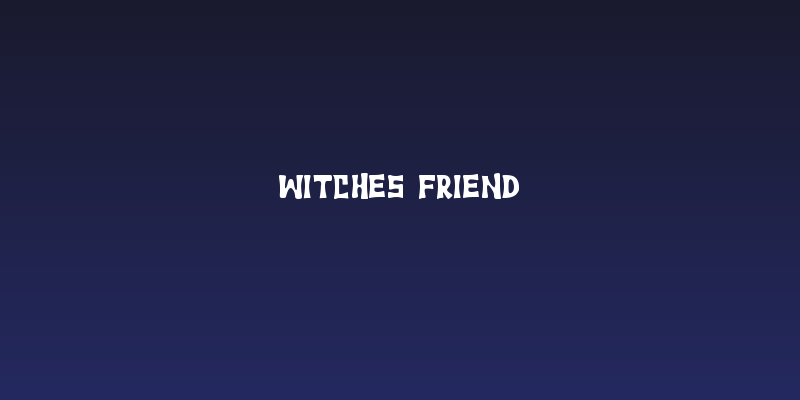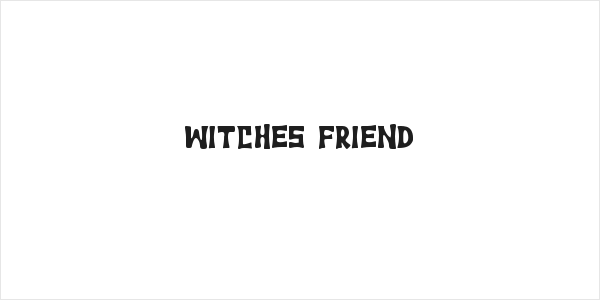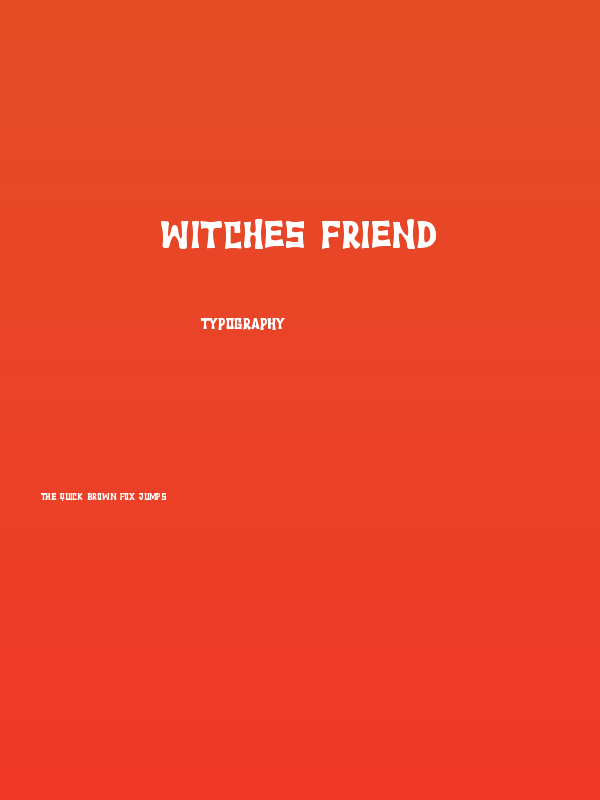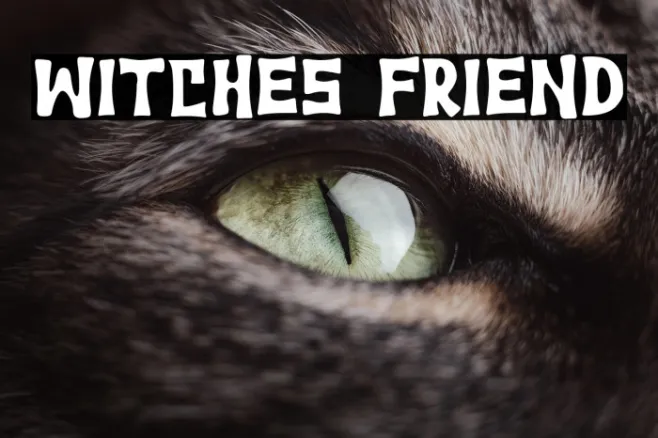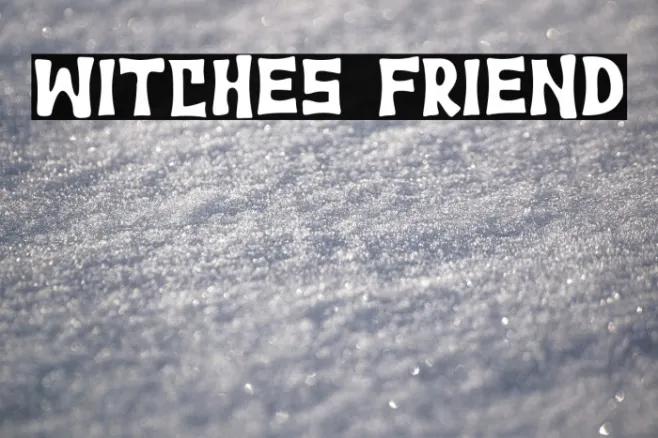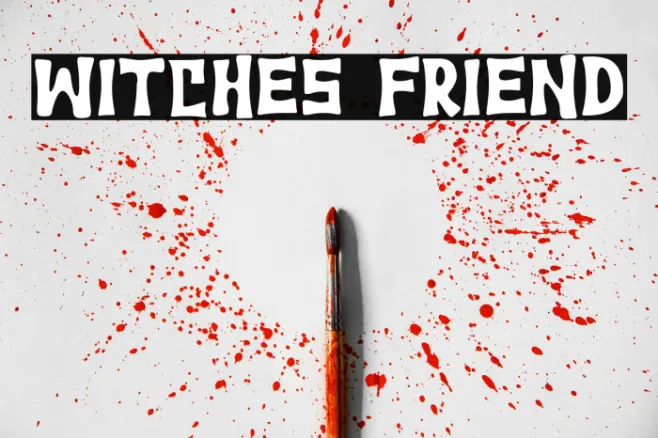
Witches Friend Font
Witches Friend Description
This font features a bold and playful design with a slightly spooky and whimsical character. The letters have a hand-drawn, uneven quality, giving them a unique and quirky appearance. The strokes are thick and consistent, with subtle variations that add to the font's charm. The overall design is reminiscent of a Halloween or fantasy theme, making it ideal for projects that require a touch of magic or mystery. The numbers and special characters maintain the same playful style, ensuring a cohesive look across all text elements.
| Overall Style | Whimsical, Playful, Fantasy |
| Use Case | Headlines, Posters, Invitations |
| Proposed Projects | Ideal for Halloween-themed designs, fantasy book covers, children's party invitations, or any project needing a magical touch. |